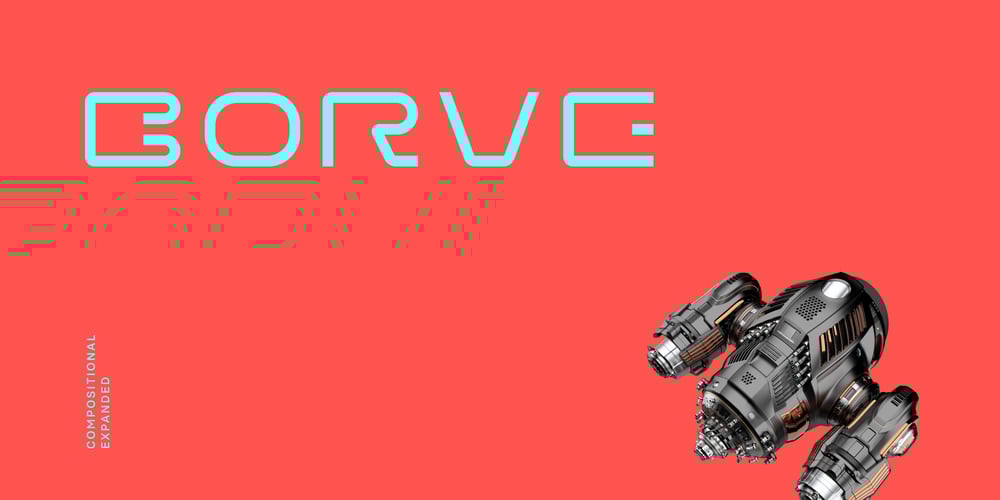
Borve
Borve font
Borve Font Family was designed by Andrew Seah and published by Baqoos. Borve contains 4 styles and family package options. Borve is a compositional expanded tech sans apt for headline, editorial, branding, packaging, printed materials and typographic applications. 240+ glyphs with ligatures and fractions available in opentype .otf format